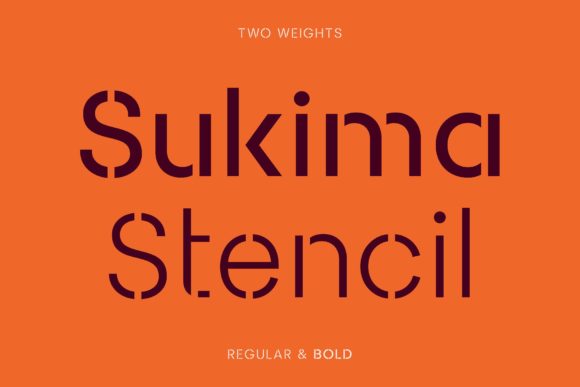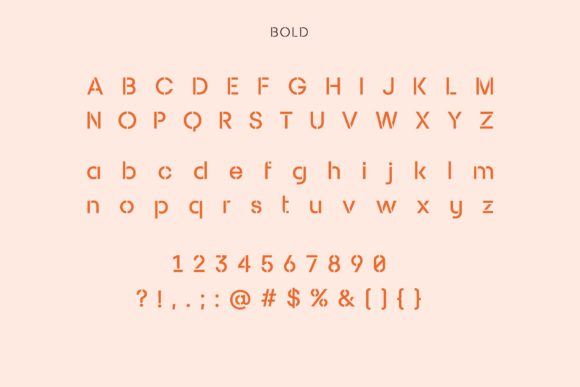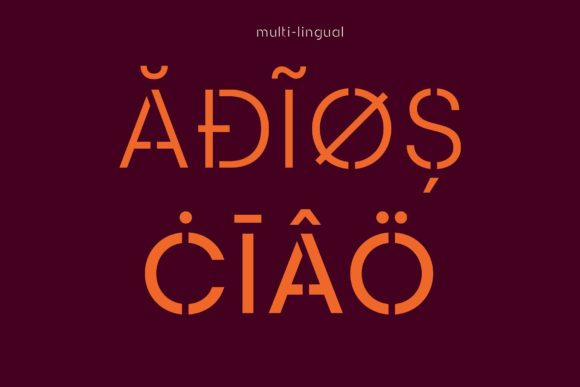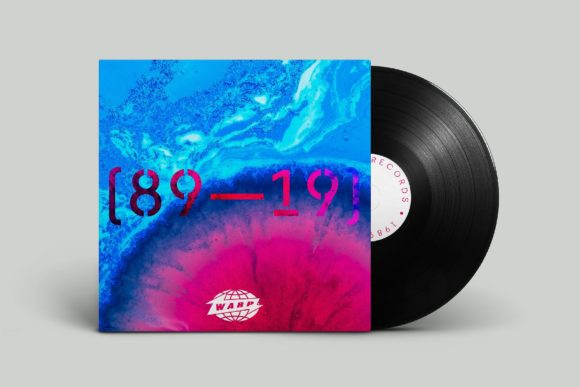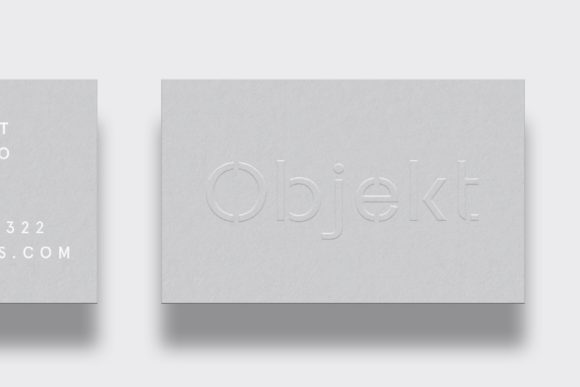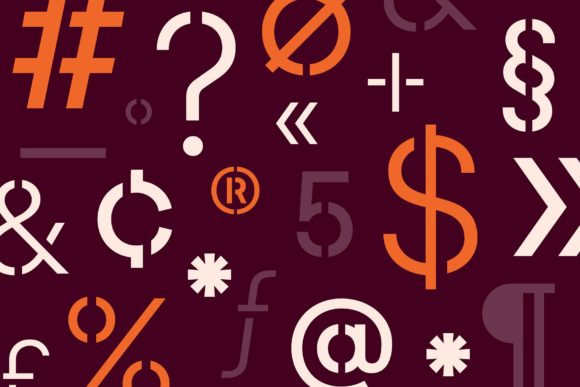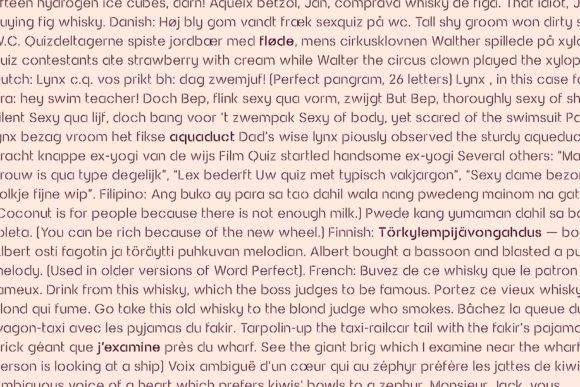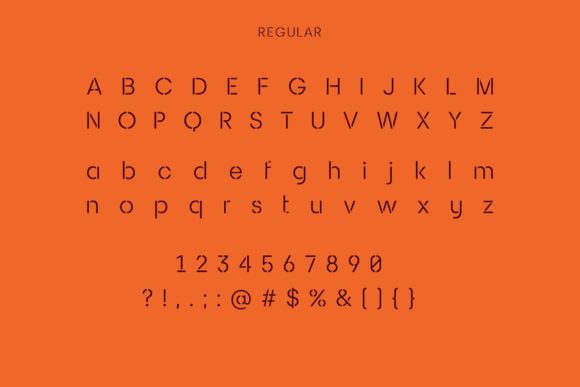
The Sukima Stencil is a new, contemporary sans-serif stencil display font that is equally at home in a bold industrial inspired design or a modern, minimal design.